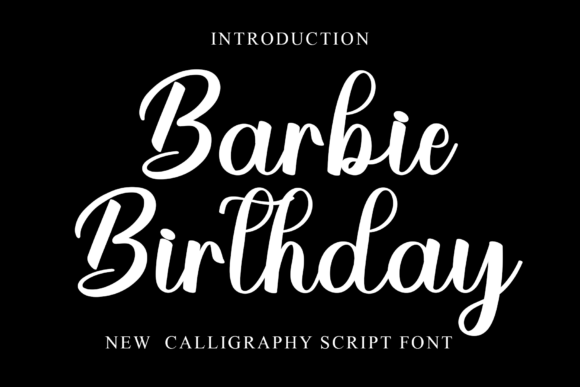
Who doesn’t remember the thrill of planning a birthday party as a child? The excitement of picking out the perfect decorations, the anticipation of blowing out the candles, and the joy of celebrating with loved ones. As designers, we often strive to capture that same sense of wonder and excitement in our work. Whether it’s a birthday invitation, a social media post, or a personal project, the right font can make all the difference.
Enter the Barbie Birthday Font, a charming and playful typeface that’s sure to add a touch of whimsy to any design. With its round, hand-drawn strokes and relaxed feel, this font is perfect for creating a warm and approachable atmosphere. And with its PUA Encoded glyphs, it’s easily accessible in a range of design applications, making it a valuable addition to any designer’s toolkit.
- Unique Characteristics: The font features a playful, cursive script with a touch of whimsy, making it perfect for birthday invitations, party decorations, and other celebratory designs.
Designer Review: Barbie Birthday Font
Overall, I was excited to dive into the Barbie Birthday Font, but my experience was a mixed bag. Let’s start with what works well:
- ✨ The font is undeniably cute and feminine, perfect for a children’s birthday party or a feminine-themed event. It’s a great choice for those looking for a playful, whimsical feel.
- ✨ The font is highly customizable, with options to adjust size, color, and even add effects like glow or shadow. This level of flexibility is a major plus for designers.
- ⚠️ The font is quite limited in its design options, which may not be suitable for more complex or professional designs. It’s better suited for simple, straightforward projects.
- ⚠️ The font may not be the best choice for projects that require a more neutral or corporate tone, as its playful vibe may clash with the desired aesthetic.
In conclusion, the Barbie Birthday Font is a fun and versatile option for designers looking to add a touch of whimsy to their projects. While it may not be the best choice for every project, it’s a great addition to any designer’s toolkit. With a little creativity and restraint, you can create some truly magical designs with this font.
The Barbie Birthday Font is perfect for creating custom birthday invitations, party decorations, and gift tags. You can also use it to add a playful touch to your social media posts, blog headers, and other design elements.
To get the most out of the Barbie Birthday Font, try combining it with other playful fonts and colors to create a cohesive design theme. Experiment with different font sizes, styles, and arrangements to add visual interest to your design.